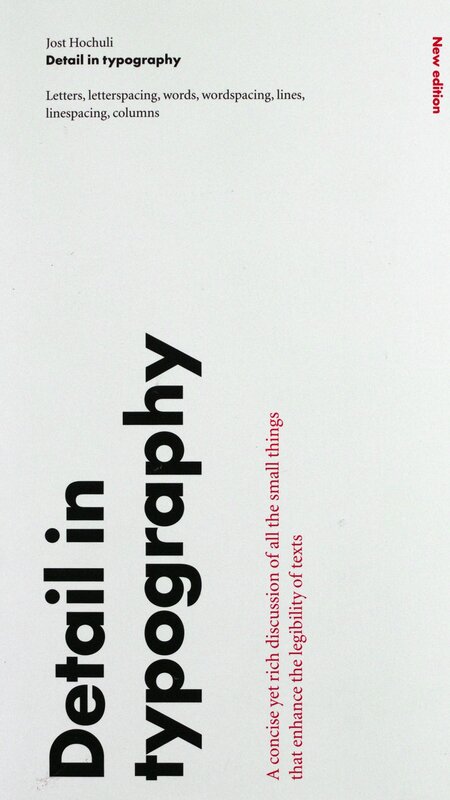
Detail In Typography
• letters, letterspacing, words, wordspacing, lines, linespacing, columns
Inhalt: How is it that text can be set perfectly and yet look insufferably dull? How do you achieve perfect congruence between the type itself and its meaning? In Detail in Typography Jost Hochuli, master book designer and author of the seminal Designing Books, addresses the finer points of setting text. Hochuli begins with a consideration of how human beings read, moving on incrementally to considerations of letter, word, and line as well as word-space and line-space. Hochuli concludes by examining whole paragraphs and how they carry meaning. Produced in Switzerland to the highest standards, Detail in Typography embodies critical thinking and articulate design in its own physical form.